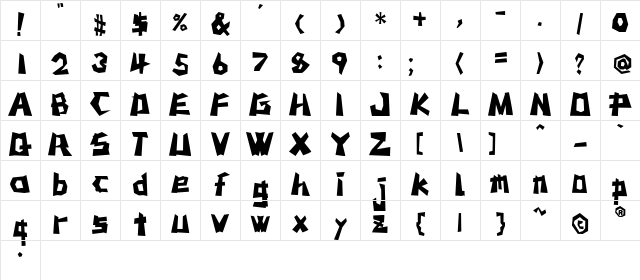
Complete MSTK RUFCUT glyph index. Displaying only characters natively supported by MSTK RUFCUT font.
MSTK is a composed and adaptable typeface that performs quietly and consistently across a wide range of design contexts.